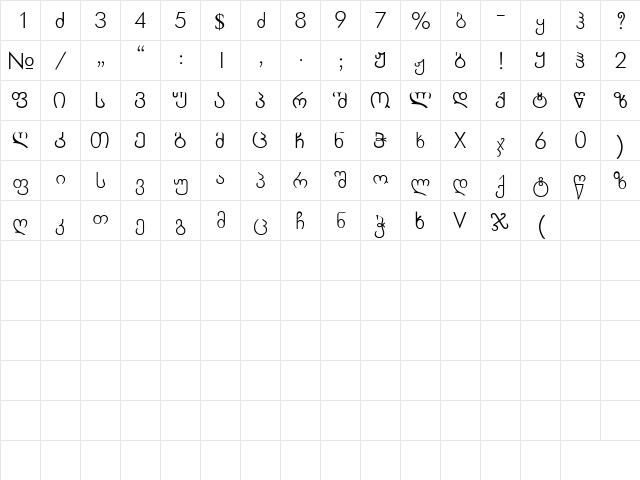
CHVEULEBRIVY A&V Regular Font Preview
CHVEULEBRIVY A&V Regular
CHVEULEBRIVY A&V Regular Font Details
Design Context for CHVEULEBRIVY A&V Typeface
CHVEULEBRIVY A&V is a composed and adaptable typeface that performs quietly and consistently across a wide range of design contexts.